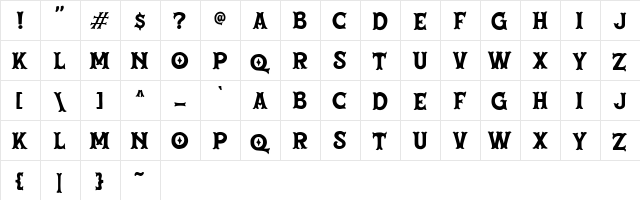
Dehors Display DEMO Regular
Design Context for Dehors Display DEMO Typeface
Dehors Display DEMO is built around its visual character rather than neutral utility — its distinctive forms are designed to make an impression at display sizes.
Font Pairing: Pair with a clean neutral sans-serif for body copy to let Dehors Display DEMO's character lead without overwhelming the composition.
Pro Tip: Use Dehors Display DEMO exclusively at display sizes — it was designed to be seen, not read at length. Let a neutral companion handle body copy.